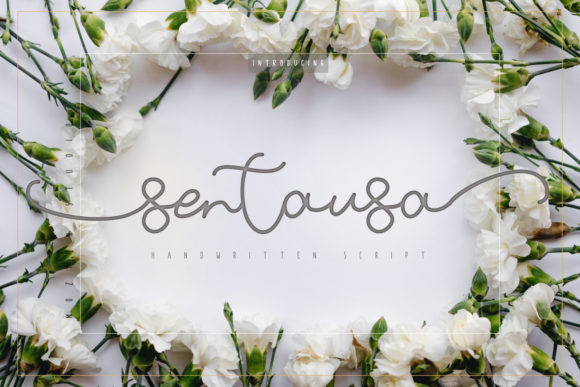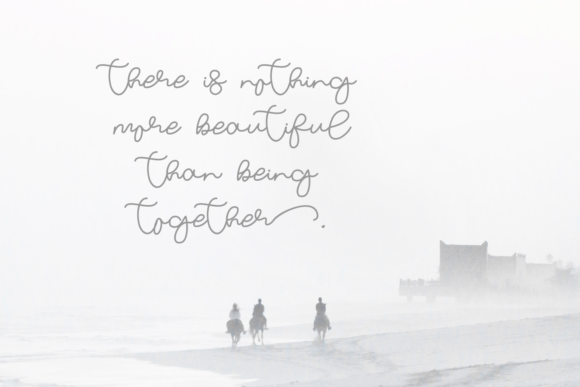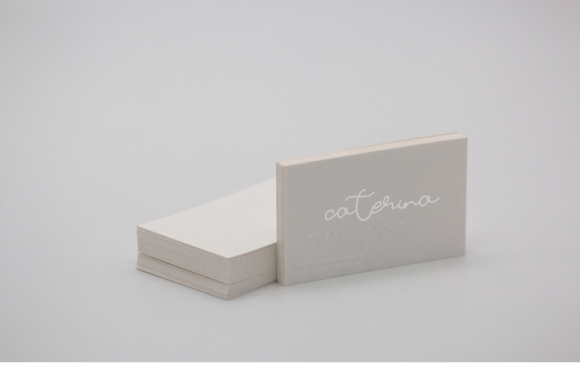
About Sentausa Font
Sentausa is a stylish and delicate font. It has a clean, thin and smooth vibe and it will be a hit for any design that you want to add it to. This font is PUA encoded which means you can access all of the glyphs and swashes with ease!